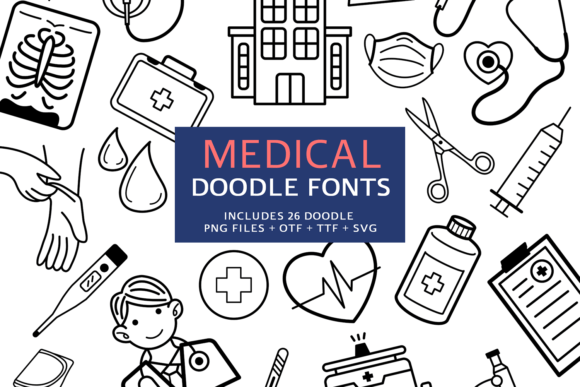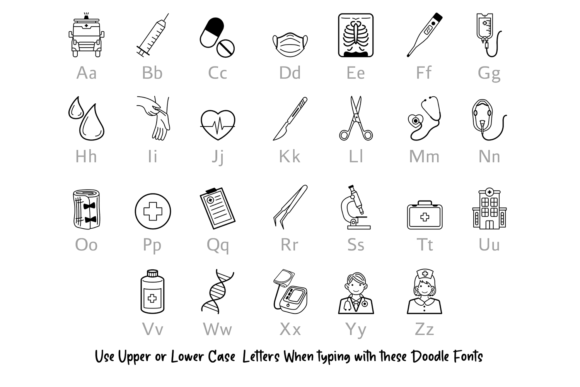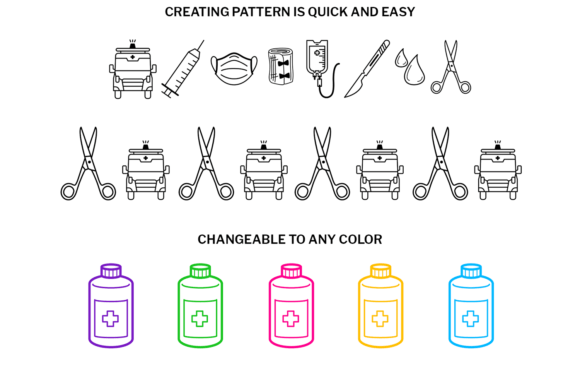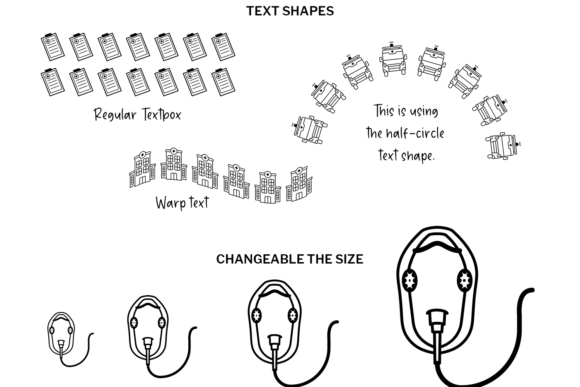
Medical Doodle Font
About the Medical Doodle Font
The Medical Doodle Font is here to transform your projects with its distinctive character and style. Medical Doodle is a fun and cute dingbats font. Its versatility makes it great for a wide pool of craft projects, designs, planners, diaries, activity books, and more!
Medical Doodle’s playful, friendly personality makes it ideal for children’s books, greeting cards, and branding for businesses targeting a young or family-oriented demographic. It works well in short headlines and decorative elements within larger designs, adding a touch of whimsy. However, its informal nature makes it unsuitable for body text or applications requiring high readability, such as websites or lengthy documents.
Pairing Medical Doodle with a clean sans-serif font like Open Sans for body copy creates a balanced and professional look. For a more sophisticated feel, consider pairing it with a classic serif like Garamond for contrasting textures. Avoid pairing it with other highly decorative or script fonts, as this could overwhelm the design.
The font’s overall aesthetic leans towards a lighthearted, approachable style, best suited for projects requiring a friendly and memorable visual identity.
Medical Doodle Font Usage Examples
Medical Doodle Font Example